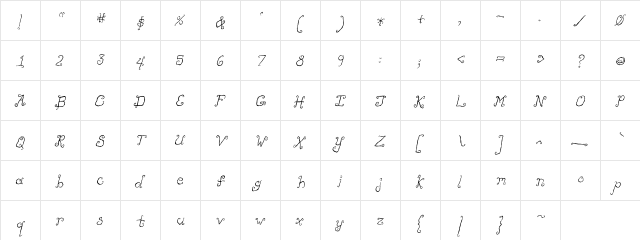
LikeCockatoos Italic
Design Context for LikeCockatoos Typeface
LikeCockatoos is a composed and adaptable typeface that performs quietly and consistently across a wide range of design contexts. The dynamic lean of this cut emphasises speed and emphasis in any layout.
Pro Tip: Try LikeCockatoos for annotation and caption copy alongside an upright companion — the contrast in angle creates a dynamic but ordered typographic system.